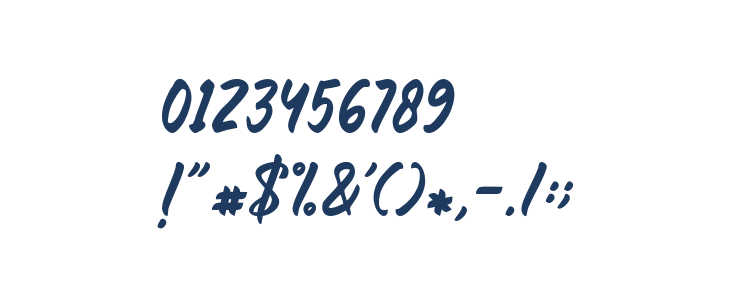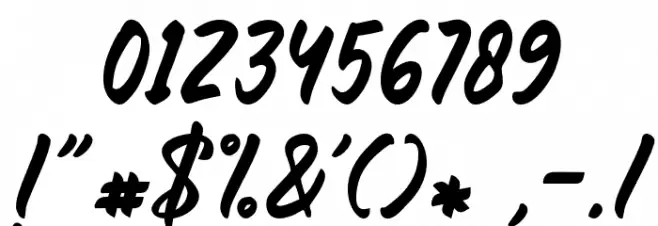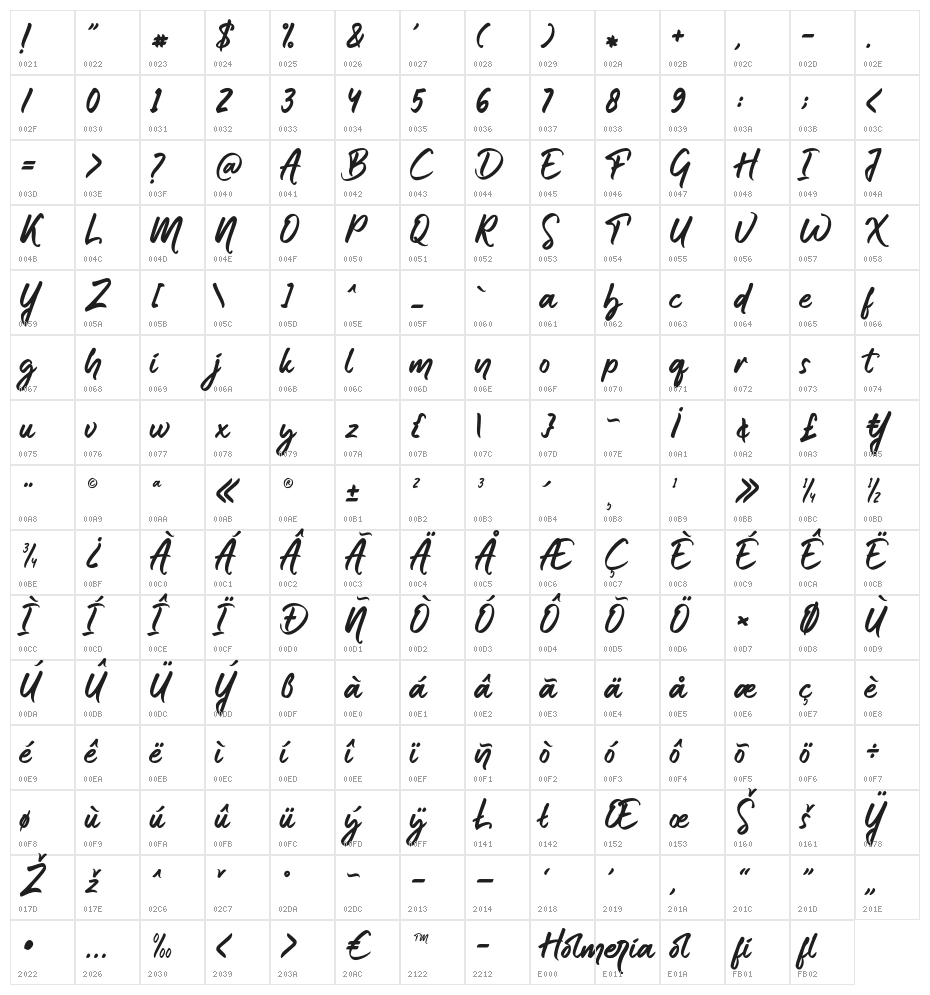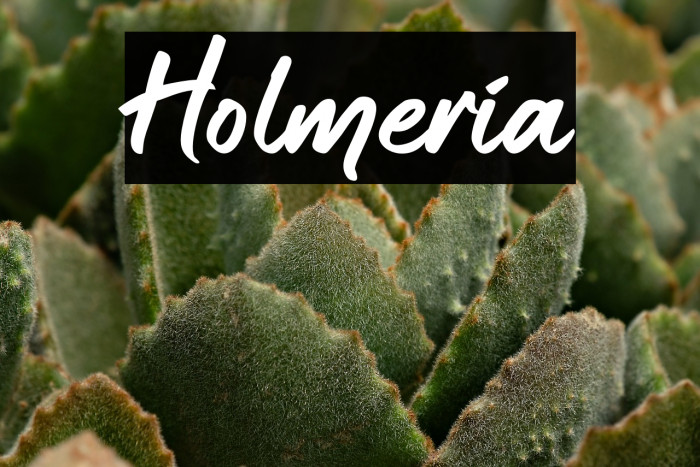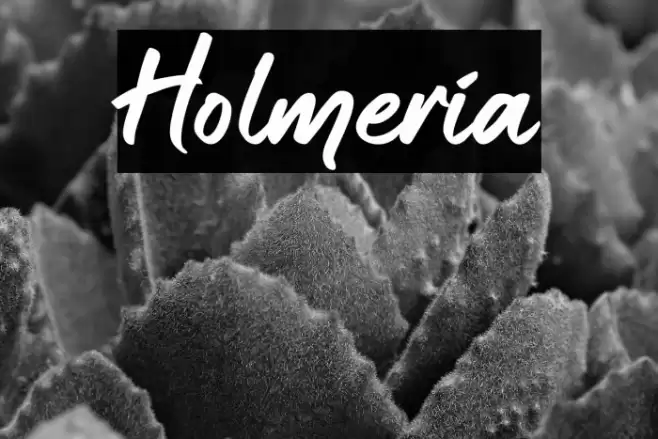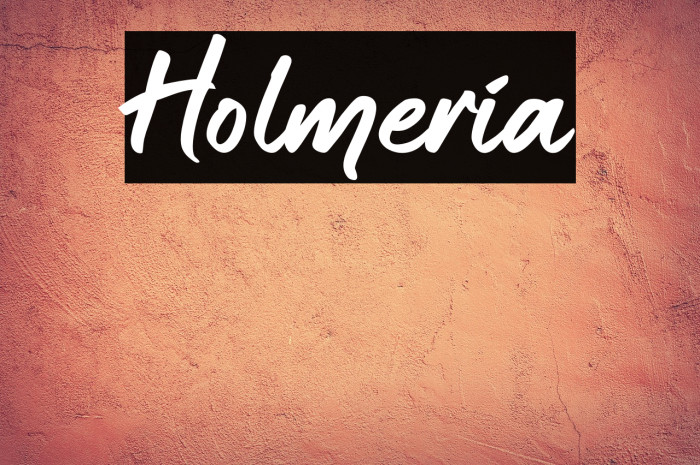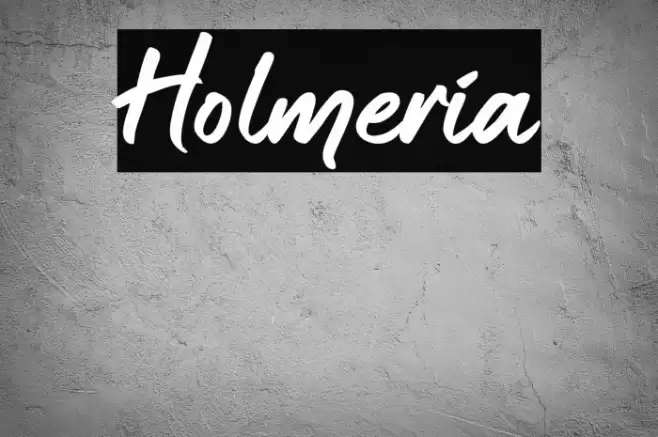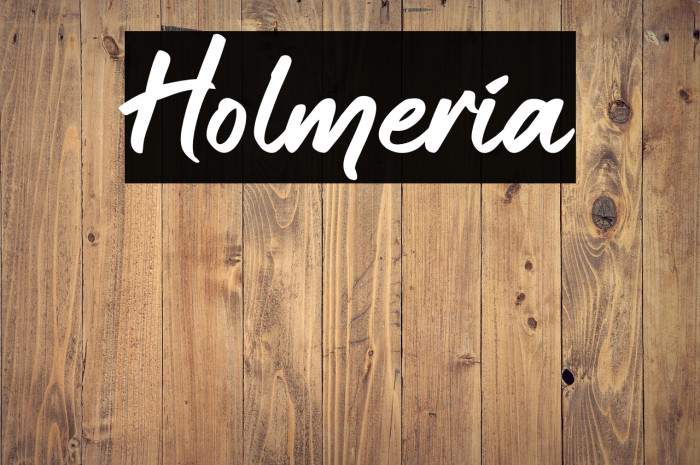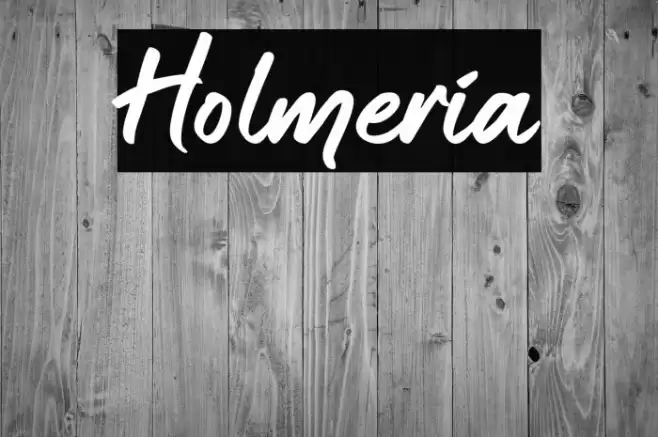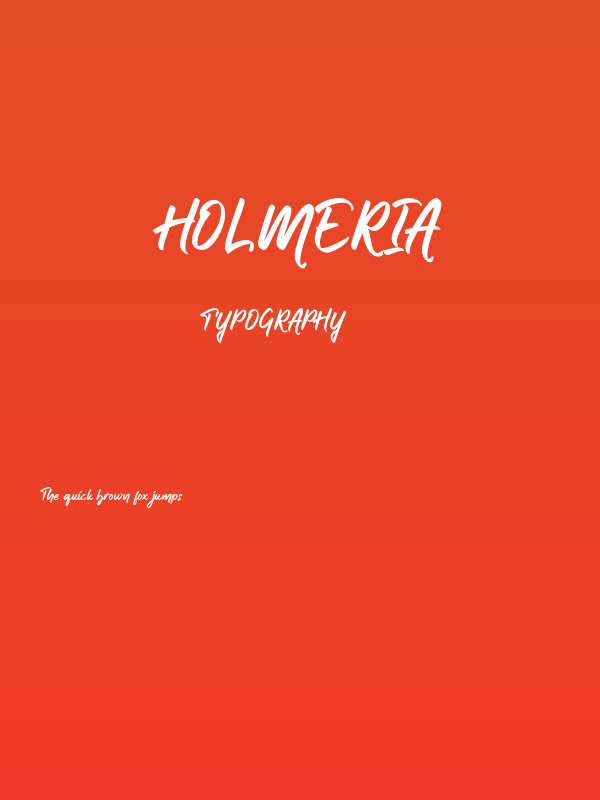
Holmeria Font
Holmeria Description
This font features a bold and expressive script style, characterized by its fluid and dynamic strokes. The letters are connected in a way that mimics natural handwriting, giving it a personal and artistic touch. The uppercase letters are slightly larger and more pronounced, while the lowercase letters maintain a consistent flow. Numbers and special characters are designed to match the overall aesthetic, ensuring a cohesive look across all text. The font's energetic and lively appearance makes it suitable for creative and informal projects.